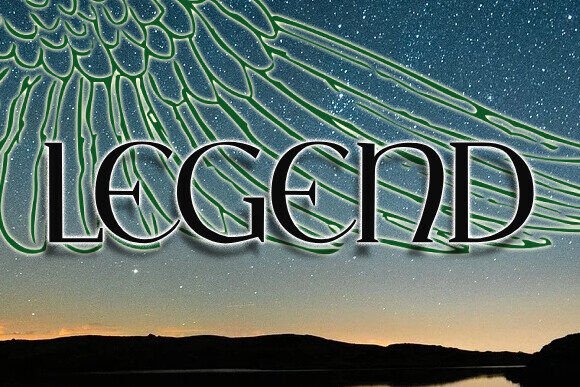
The Elvish Force Font: A Design Game-Changer
I’ll never forget the time I was working on a project for a client who wanted a poster design that screamed “fantasy” and “adventure.” I had all the graphics and imagery ready, but I was stuck on finding the perfect font. That’s when I stumbled upon the Elvish Force font, and it completely transformed my design. If you’re a designer, crafter, or creative hobbyist looking for a font that will make your work stand out, you’re in the right place!
Elvish Force: An Honest Review
So, what makes Elvish Force so special? Let’s dive into the good stuff and a few quirks I’ve discovered.
- ✨ Unique and intricate lettering that adds a touch of magic to any design
- 💫 Perfect for fantasy, adventure, and whimsical themes
- 🎨 Versatile and works well for posters, flyers, t-shirts, and more
While Elvish Force is an amazing font, there are a few things to keep in mind:
- 🤔 Some characters may require manual kerning for optimal spacing
- ⚠️ Not ideal for body text or long paragraphs, as it’s best suited for headlines and titles
The Backstory Behind Elvish Force
The story behind Elvish Force is shrouded in mystery, but it’s said that a talented type designer, inspired by ancient mythology and fantasy literature, crafted this font to bring a touch of magic to the world of design. The designer’s passion for fantasy and adventure drove the creation of Elvish Force, making it a one-of-a-kind font that has captured the hearts of designers and crafters alike.
| What type of designs is Elvish Force best suited for? | Elvish Force is perfect for fantasy, adventure, and whimsical themes, making it ideal for posters, flyers, t-shirts, and other creative projects. |
| Is Elvish Force a difficult font to read? | No, Elvish Force is highly legible, even at smaller font sizes, making it suitable for titles, headings, and short text. |
| Font Name | Elvish Force Font |
| Author | vladimirnikolic |